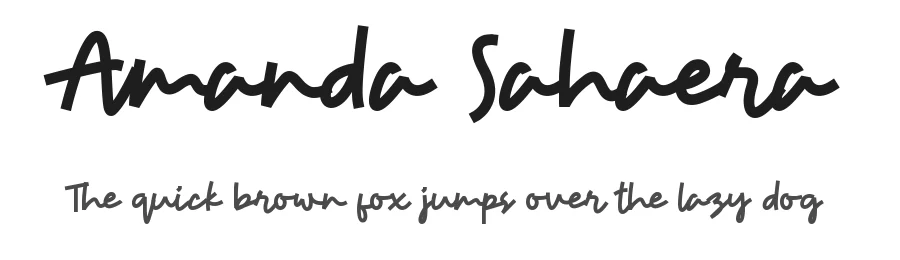
About White Coffee Font
White Coffee Specifications
| Font Family | White Coffee |
| Full Name | White Coffee |
| Glyph Count | 168 glyphs |
| PostScript Name | WhiteCoffeeRegular |
| Designer | Nur Edi Prayitno |
White Coffee ships with 1 OpenType feature you can switch on in apps that support them (Illustrator, InDesign, Affinity, Figma, CSS font-feature-settings).
White Coffee Font is a script font that shines as a display or heading face. Pair it with a clean sans-serif or serif font for body text β the contrast creates a clear hierarchy while the two styles stay balanced and easy to read.
White Coffee Font
by Eddy Goodboy